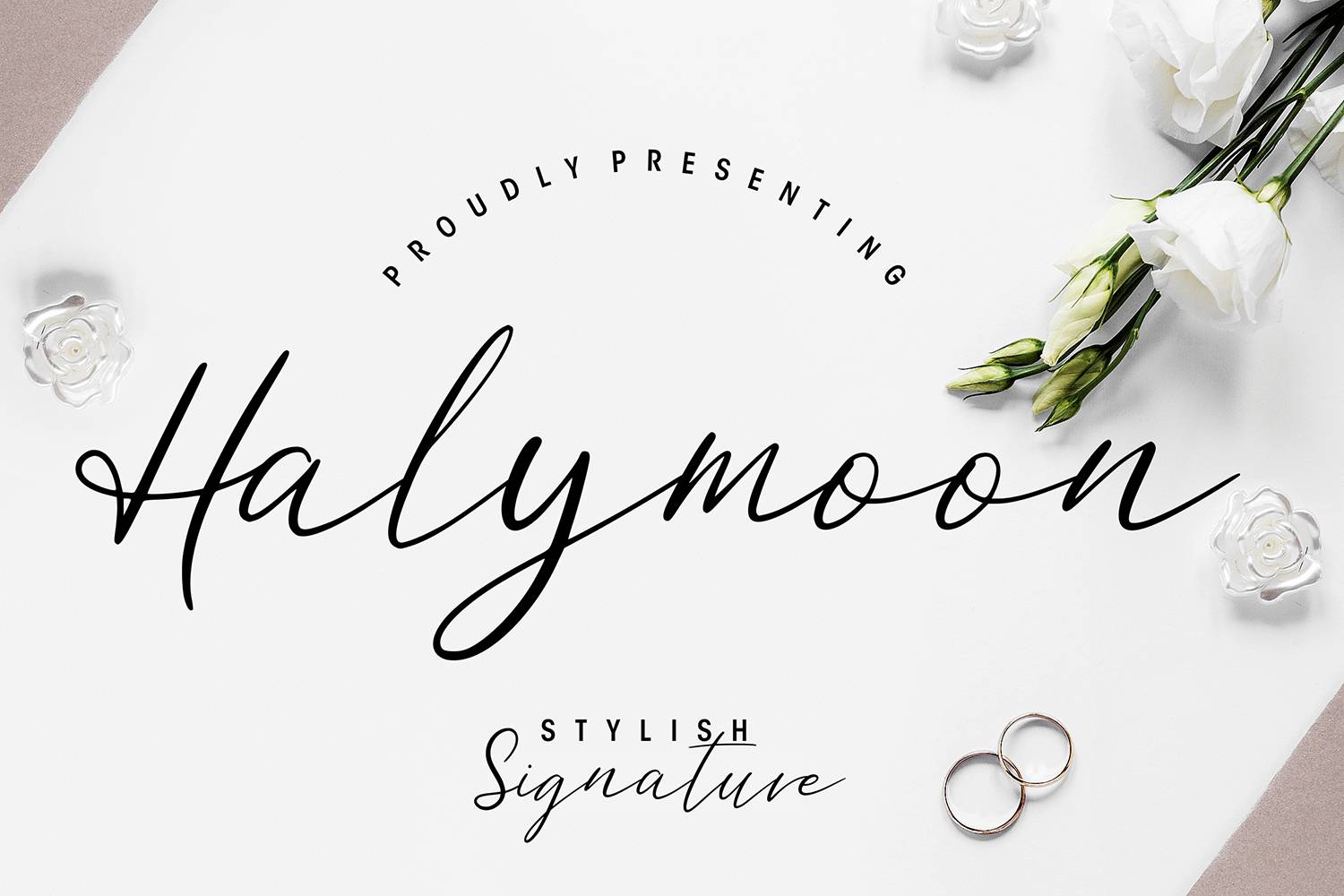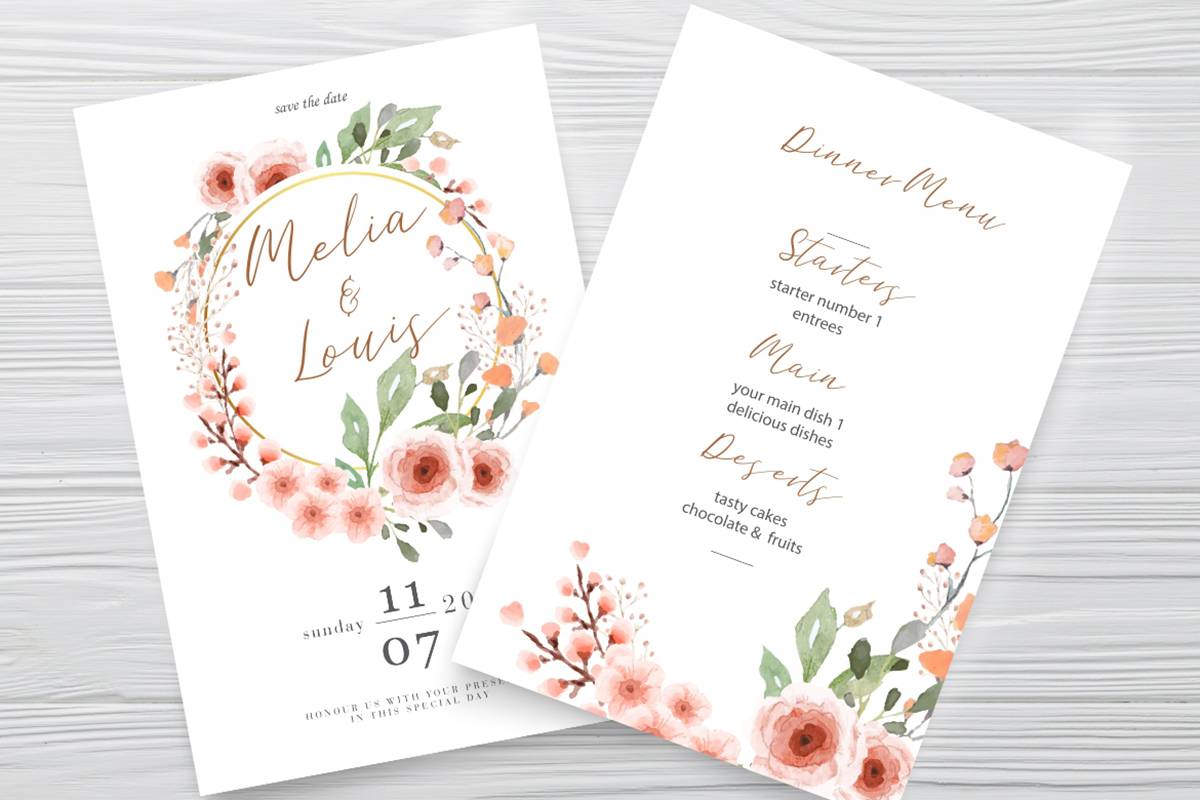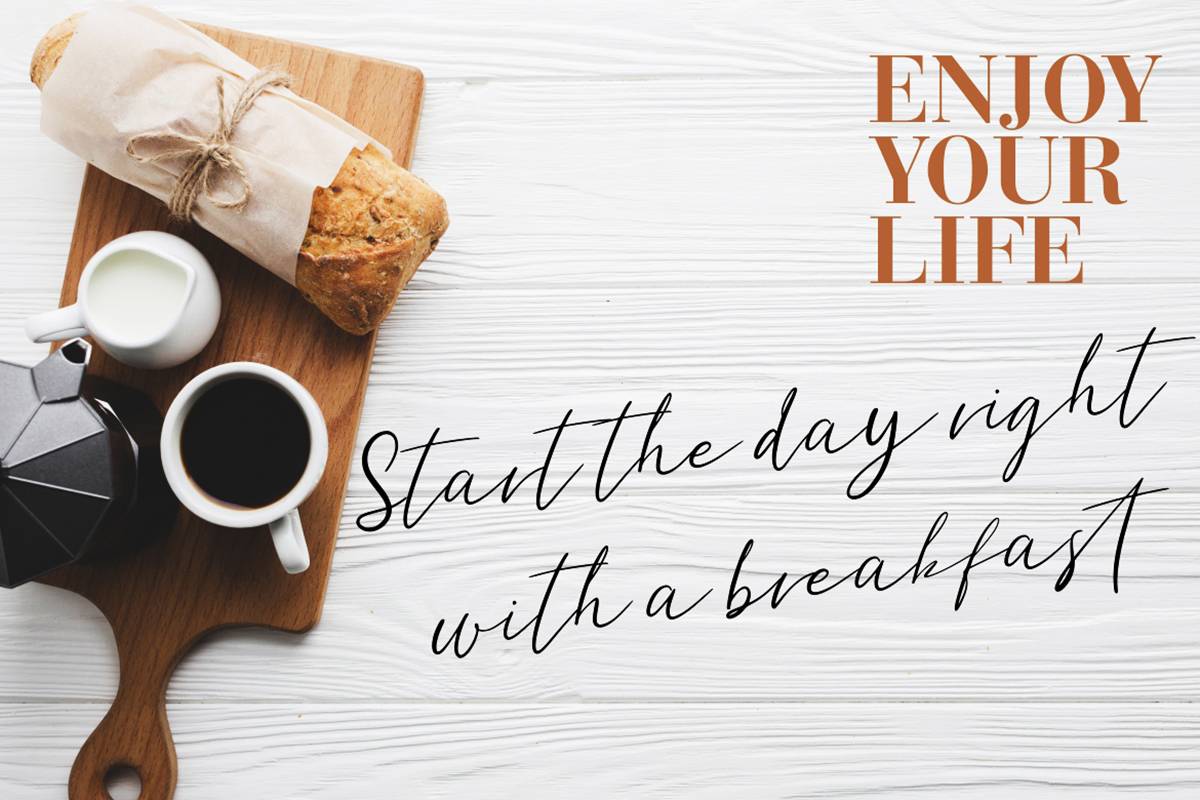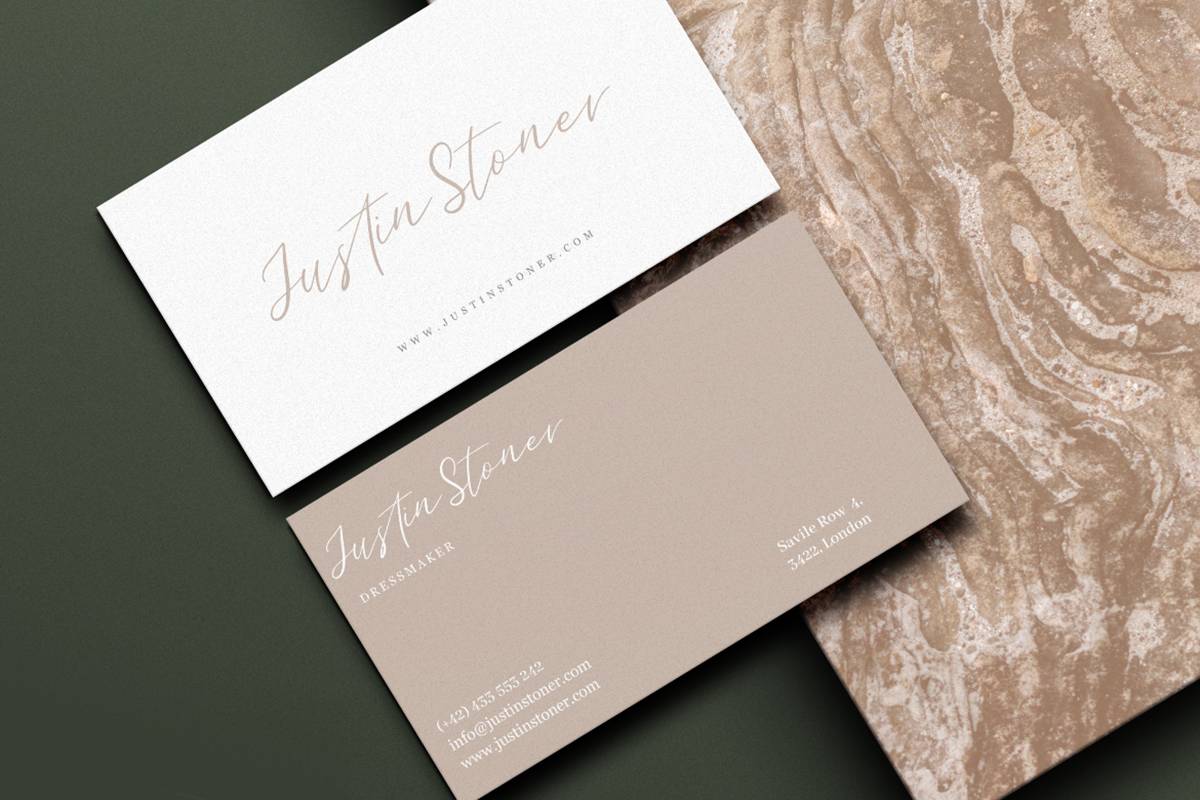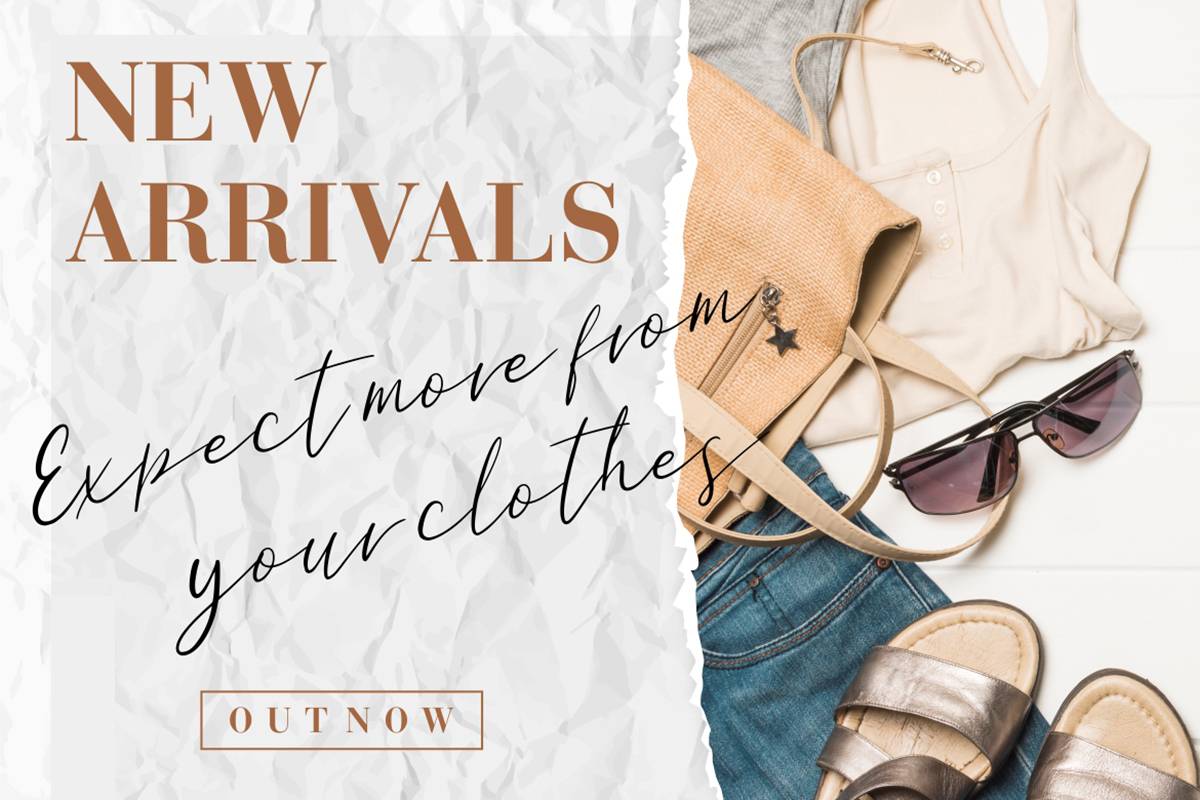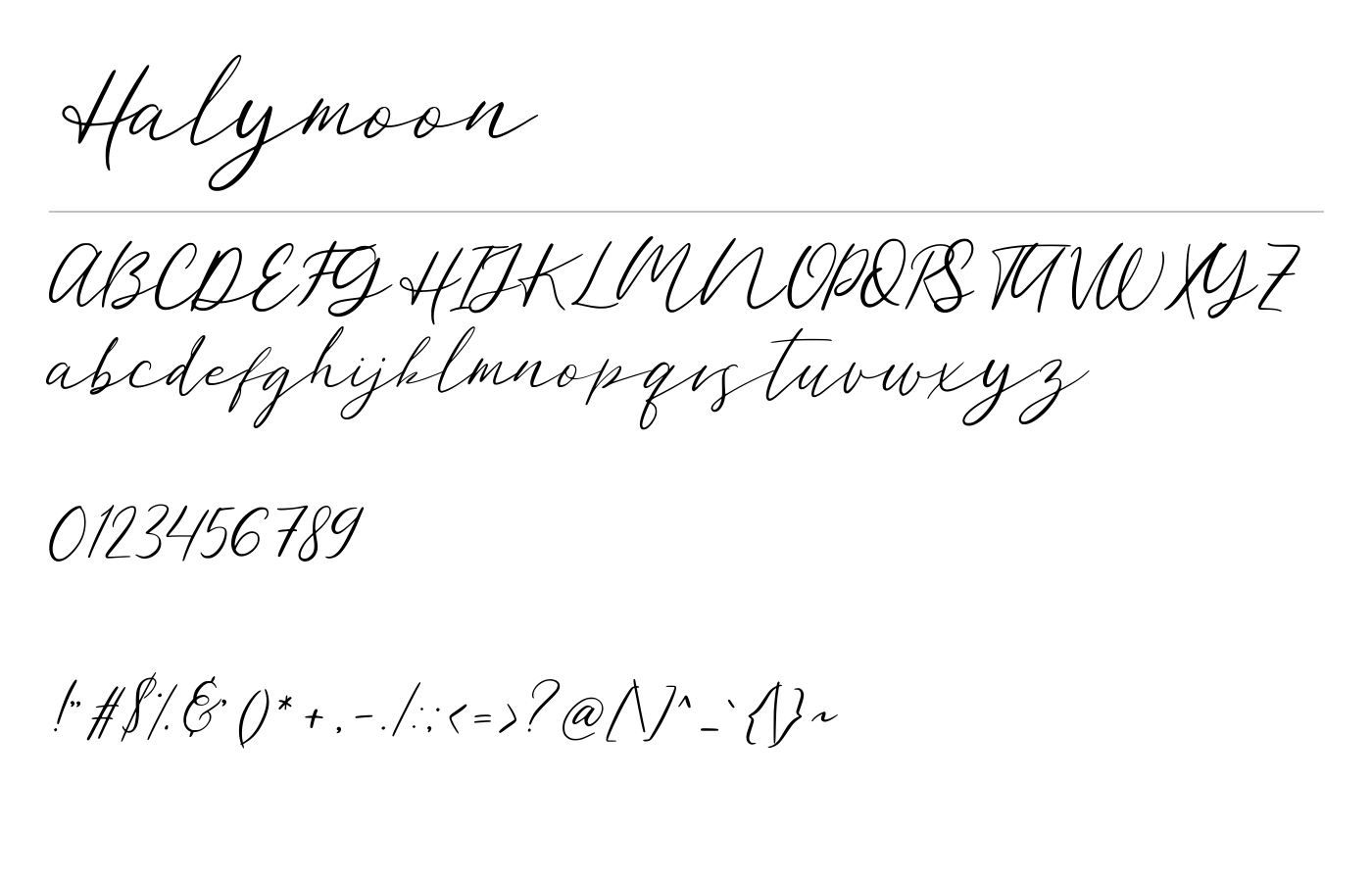
Halymoon is a delicate and elegant script font featuring a light weight with flowing, handwritten letterforms that convey a personal and sophisticated feel. Its slender, slightly irregular strokes and refined curves make it ideal for romantic, feminine, or creative branding, invitations, and editorial designs where a graceful and intimate touch is desired. This font works beautifully in headlines and logos that seek a chic yet approachable style.
Halymoon Font
About Halymoon Font